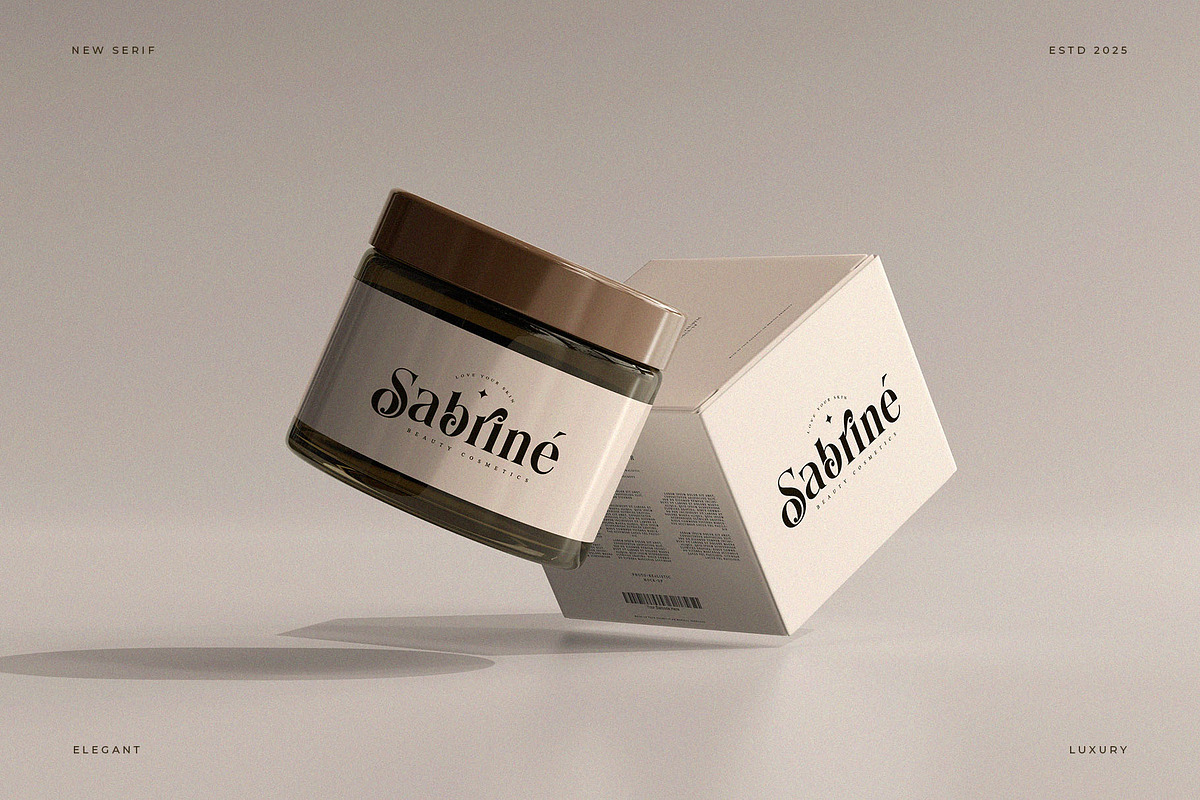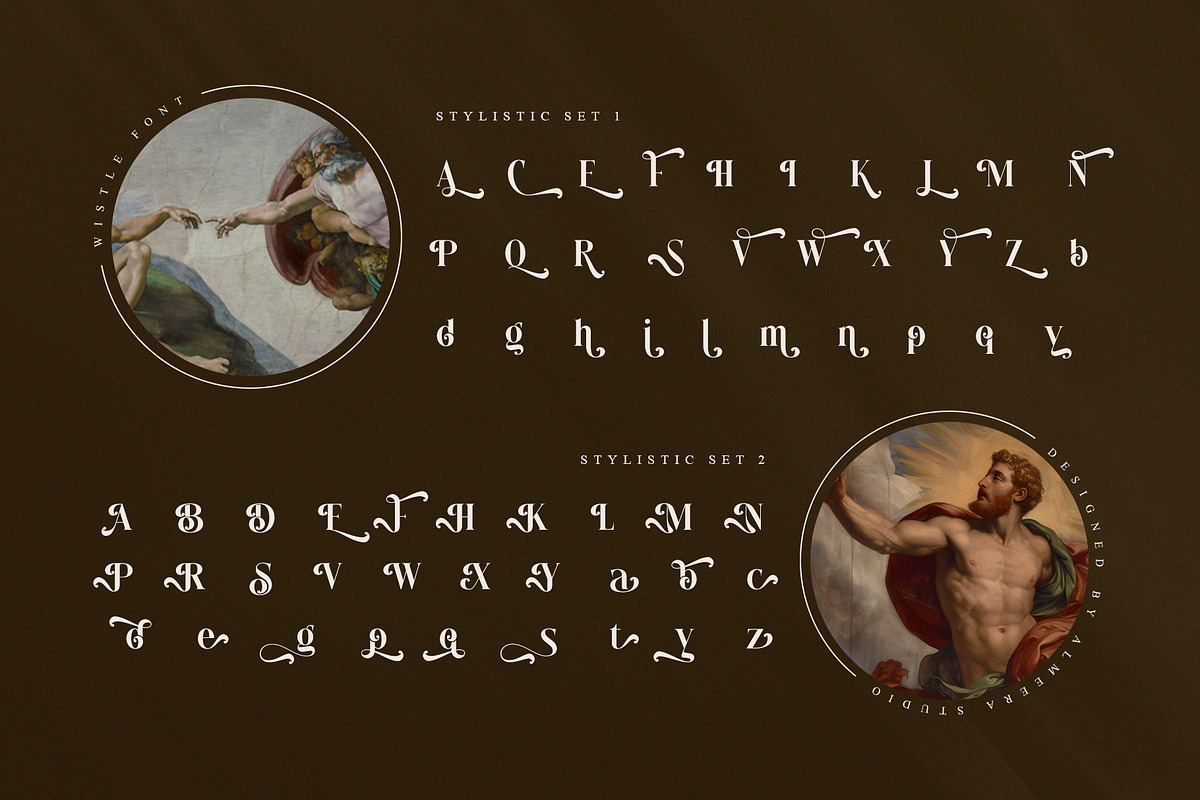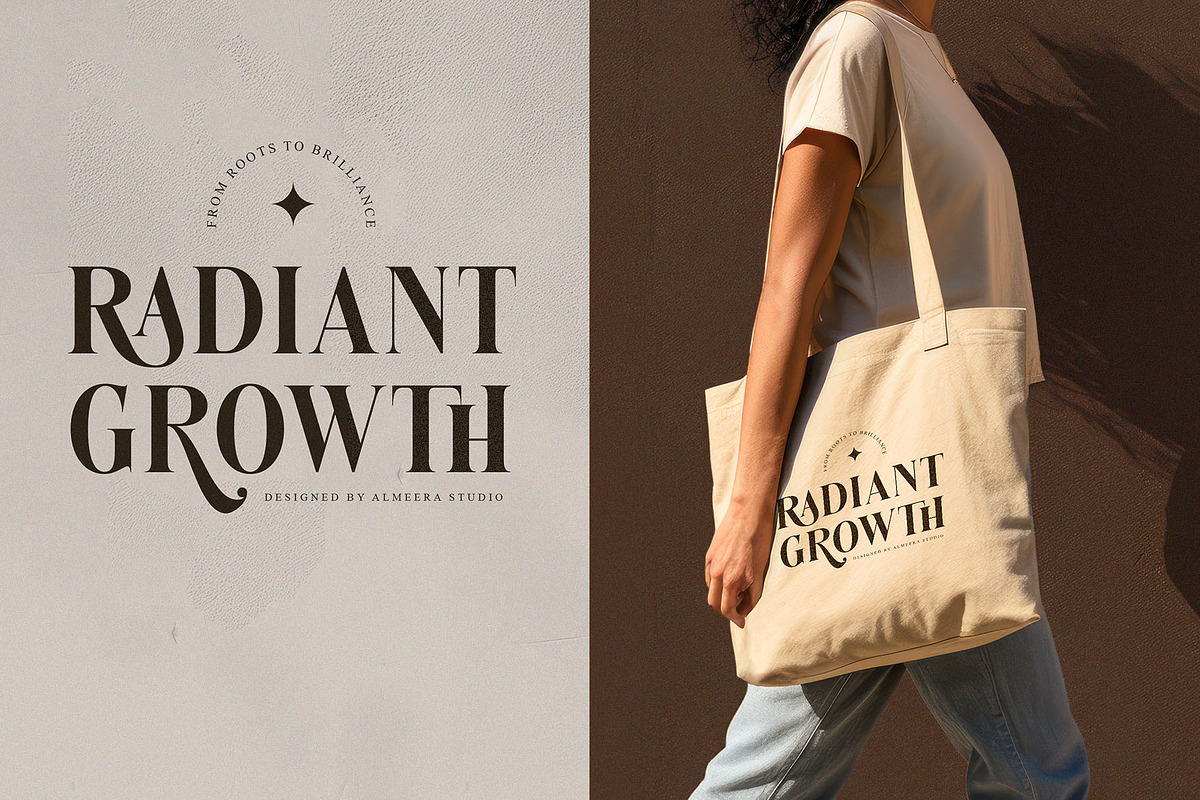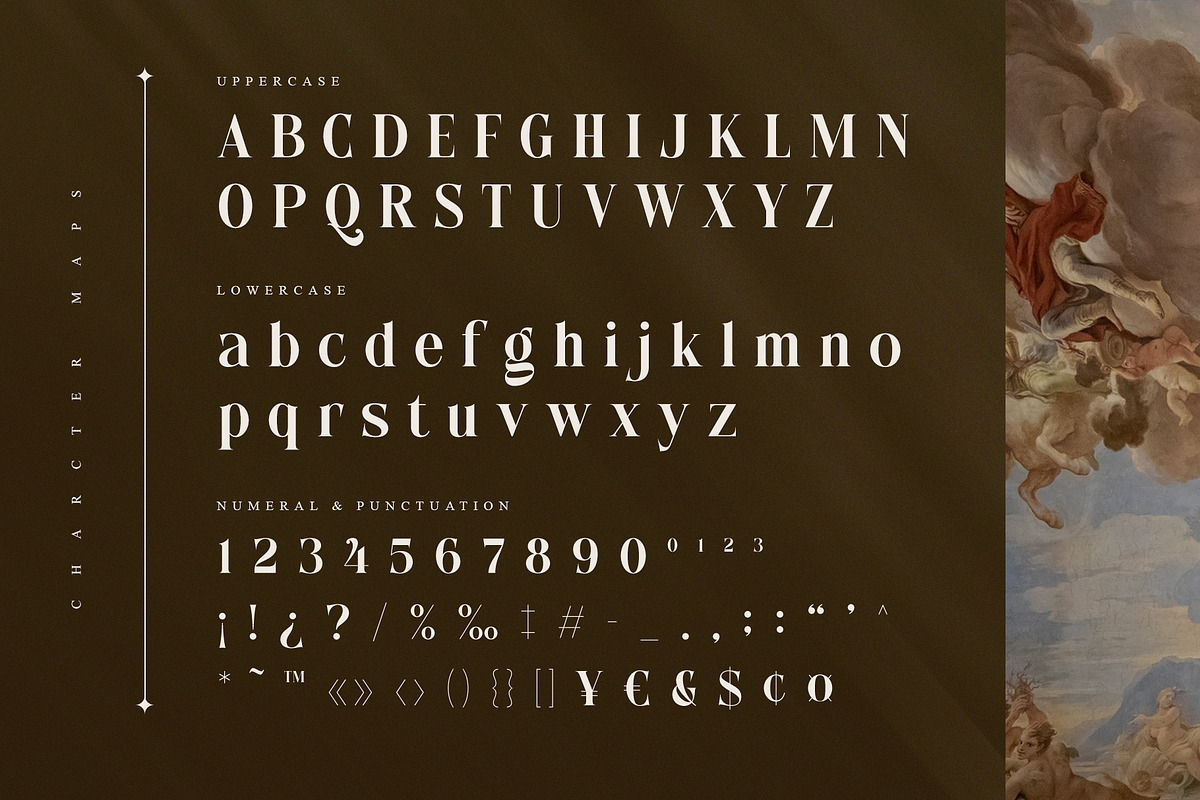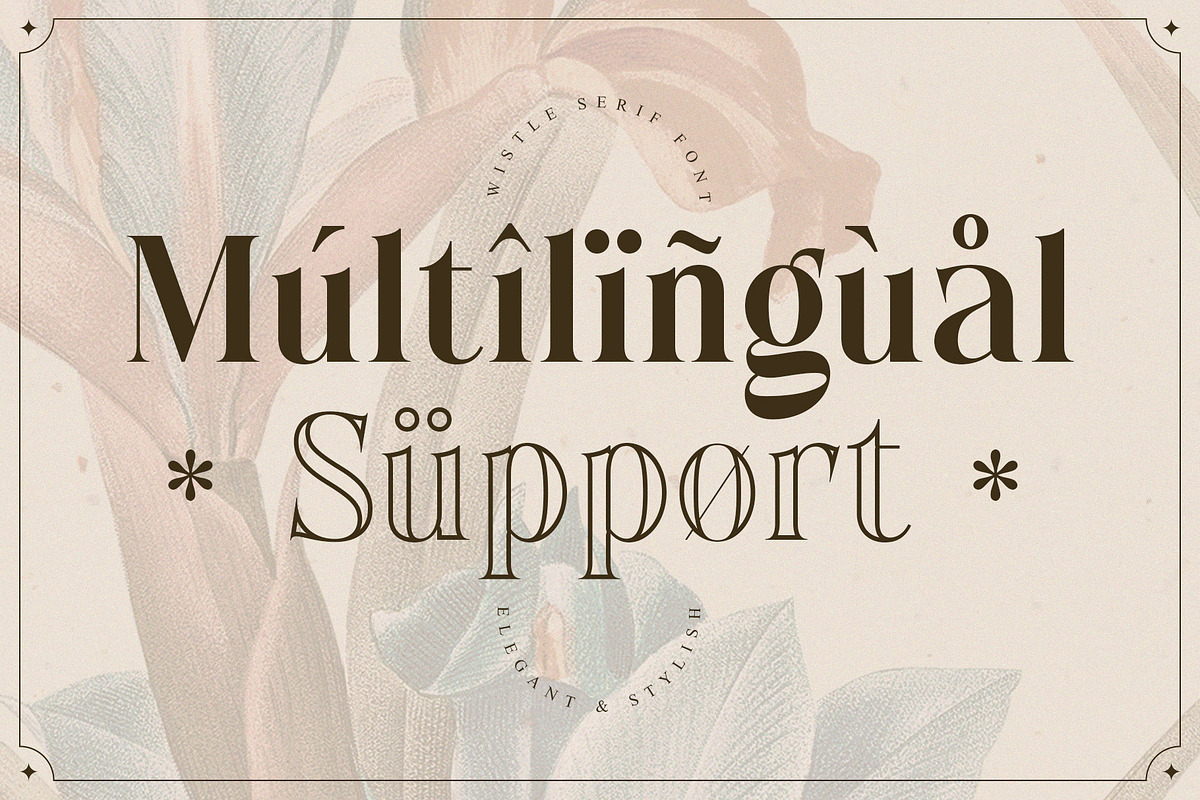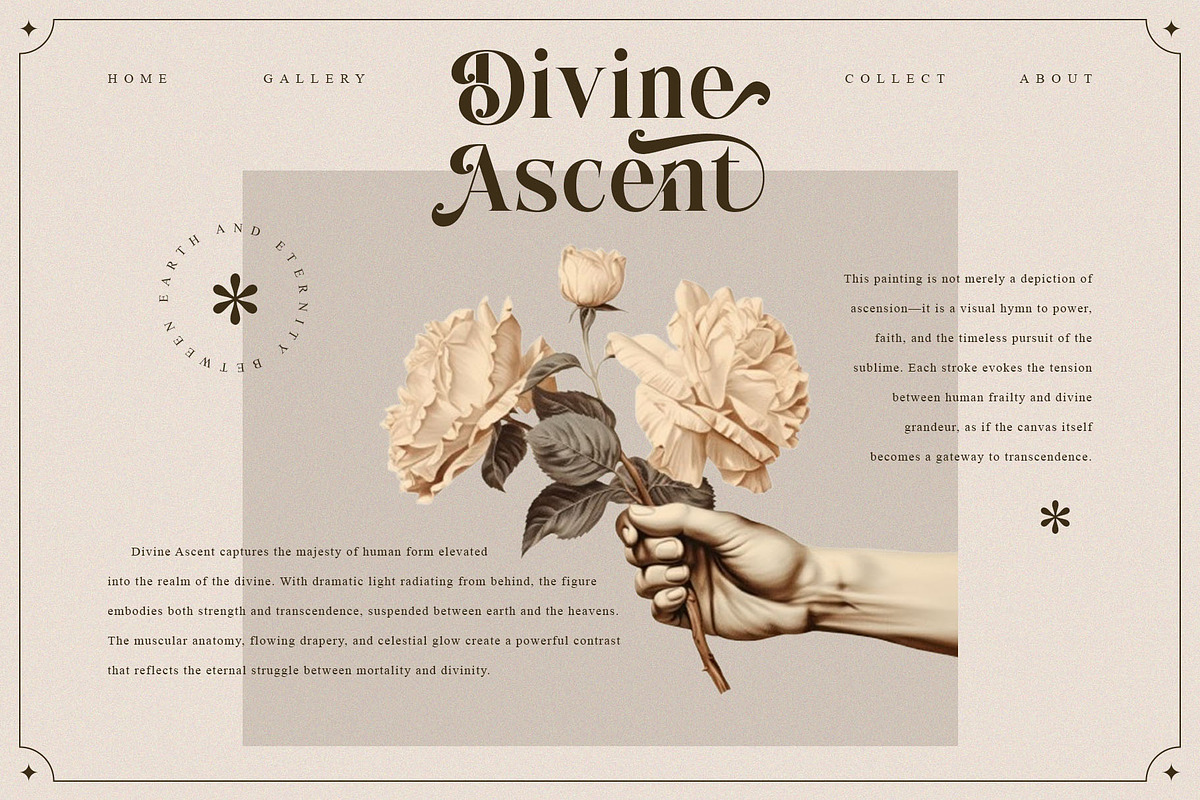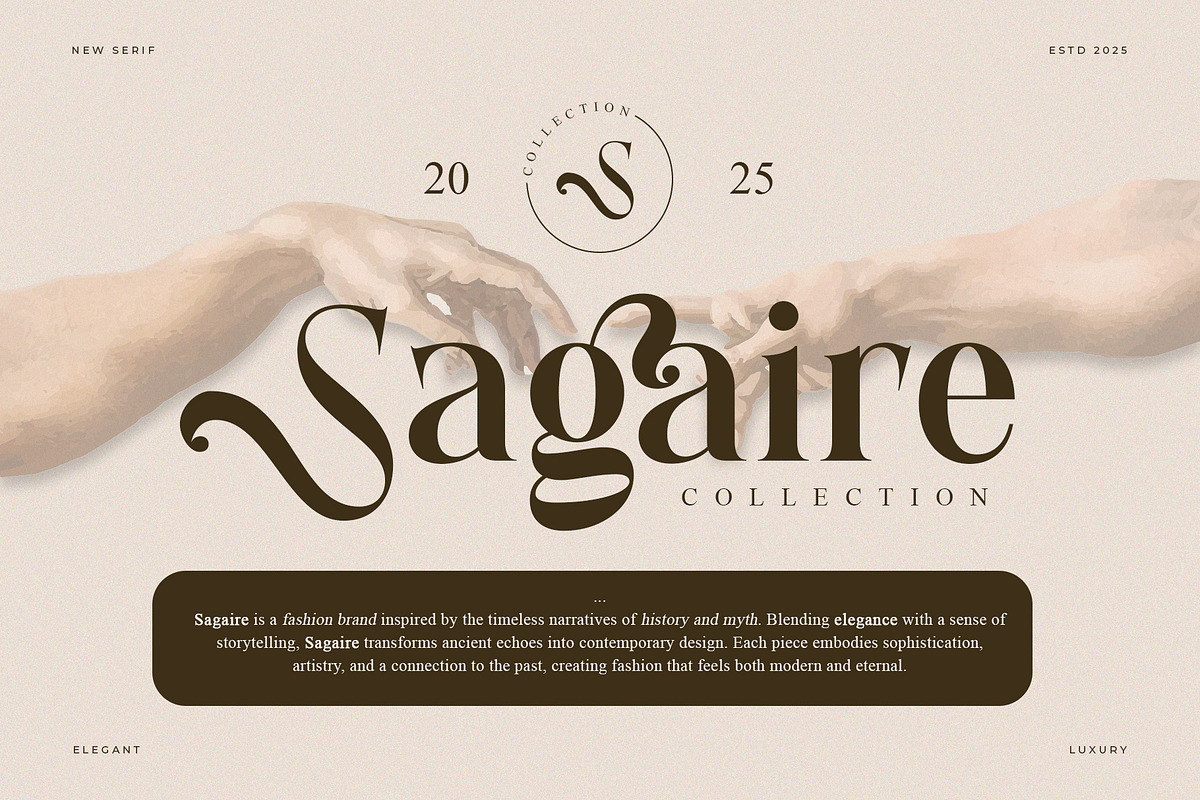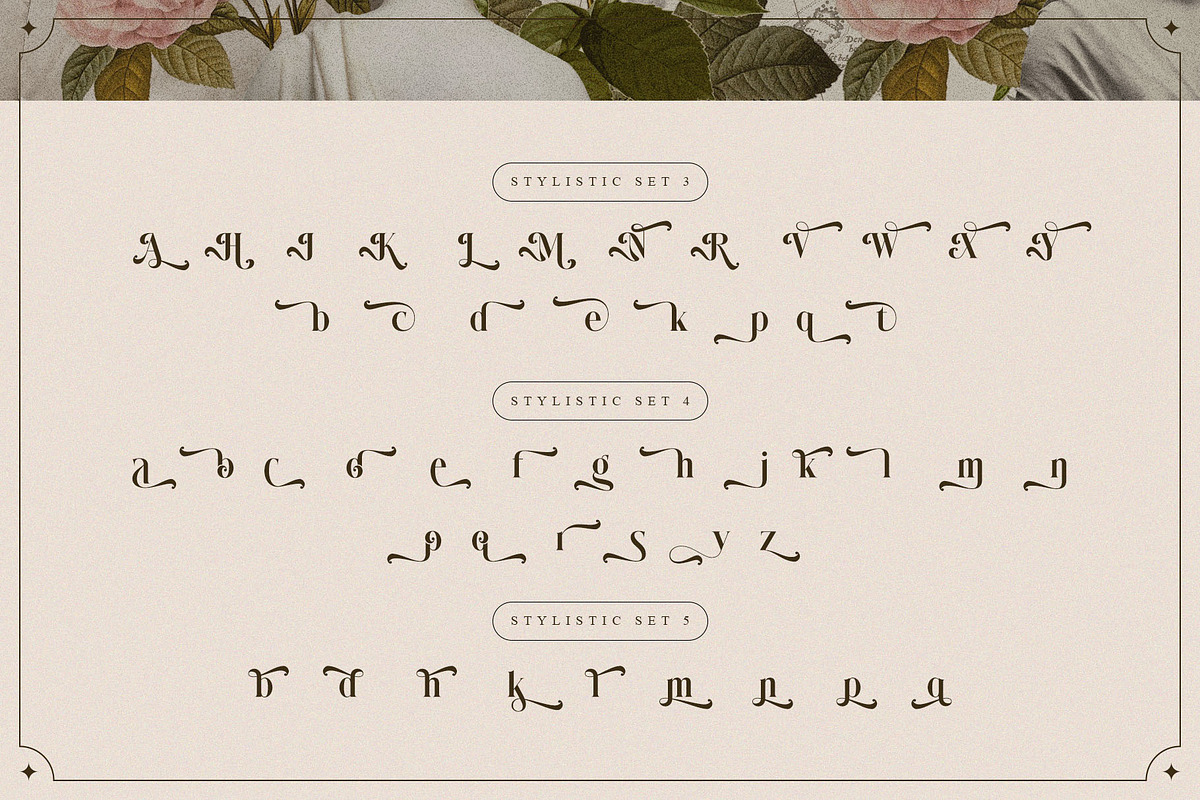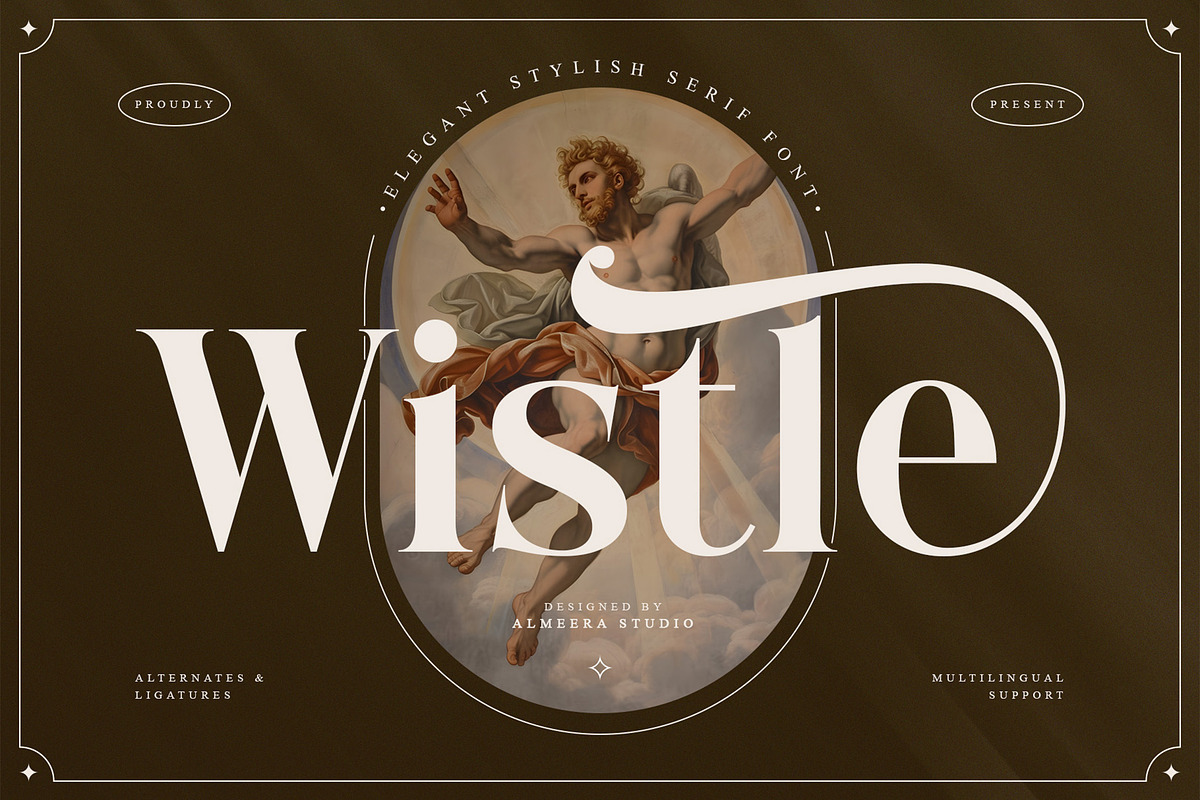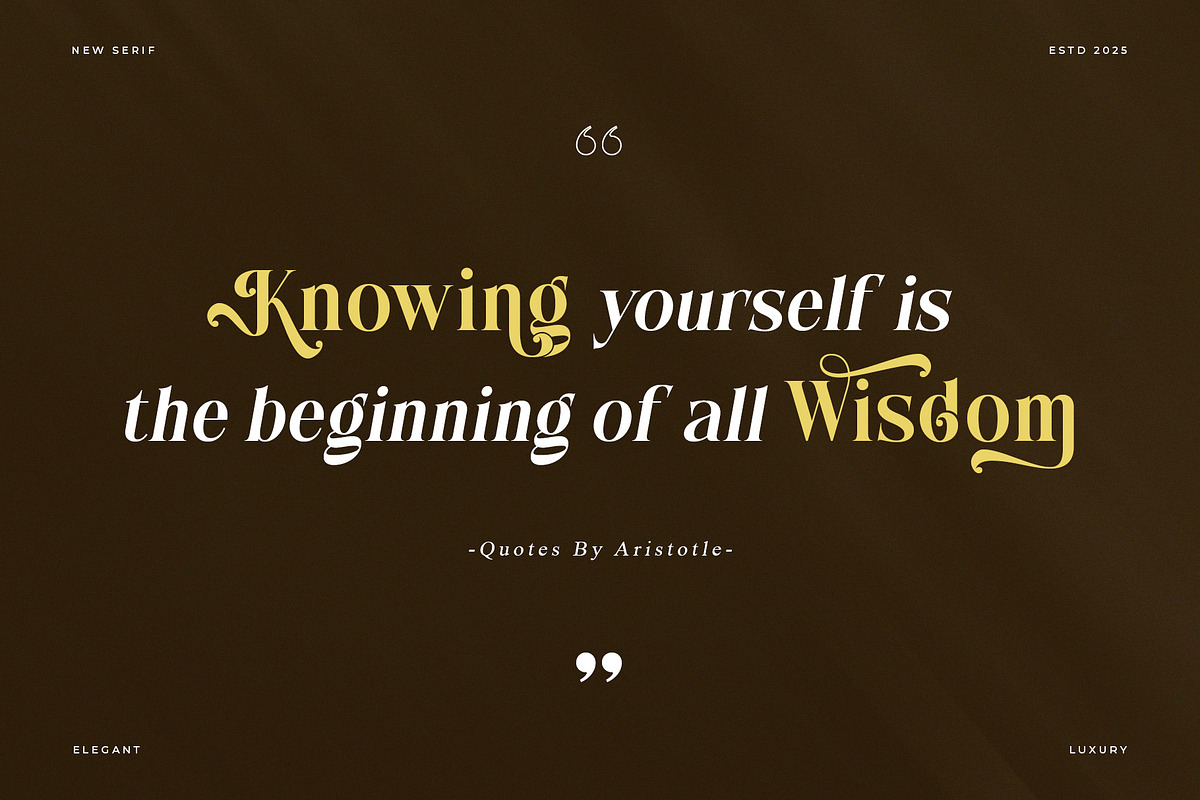
Wistle – Elegant Stylish Serif
Wistle is an elegant stylish serif font that fuses classic sophistication with modern sensibility. Featuring graceful alternates and flowing ligatures, Wistle is perfect for luxury branding, editorial design, fashion campaigns, packaging, and high-end invitations. Its refined curves and timeless style make it a versatile choice for professional designers looking to elevate their projects with a touch of class.
- Playful alternates and swashy details
- Numerial